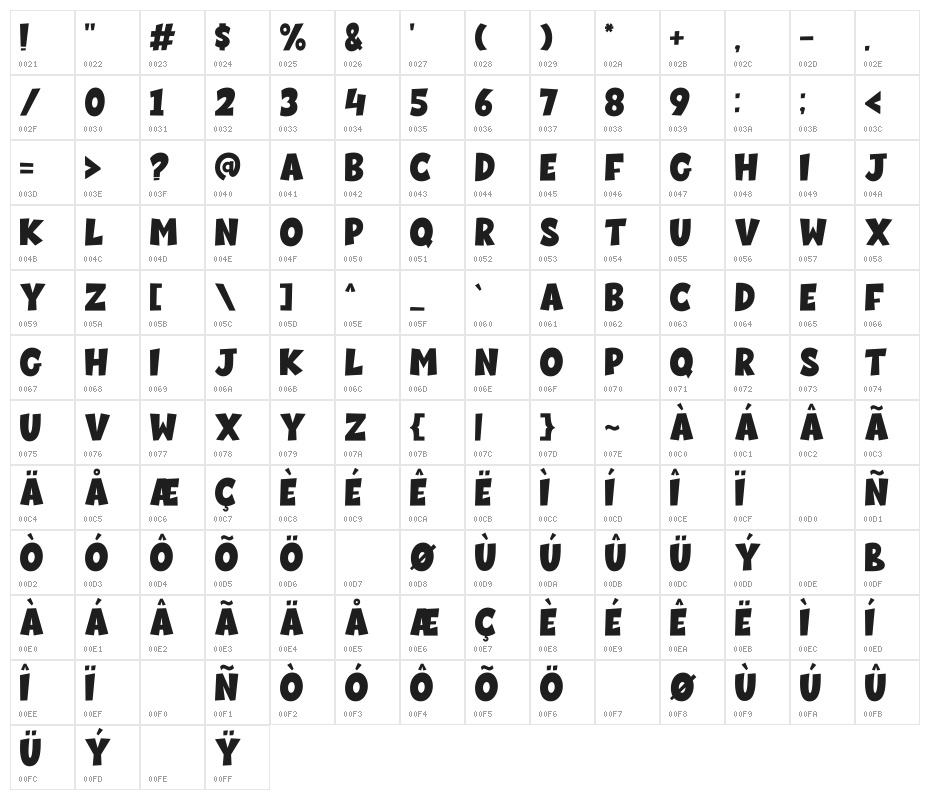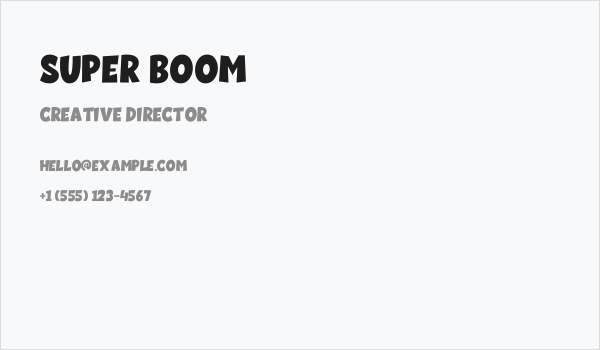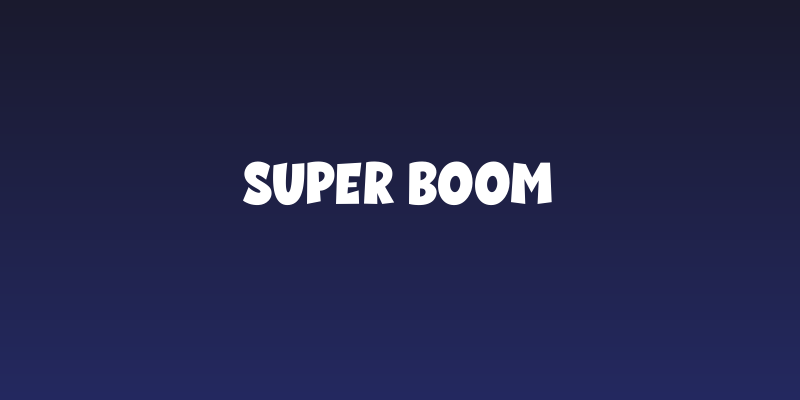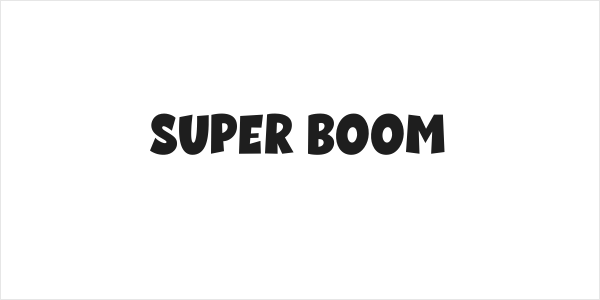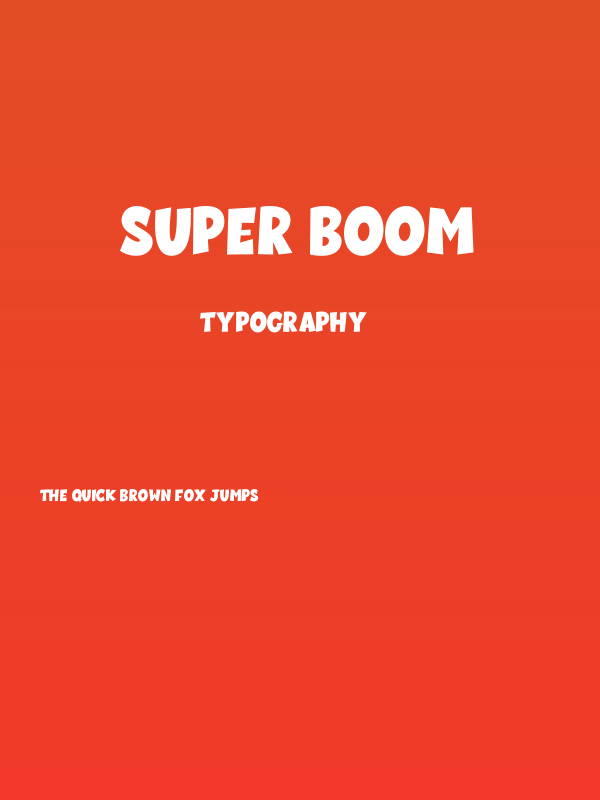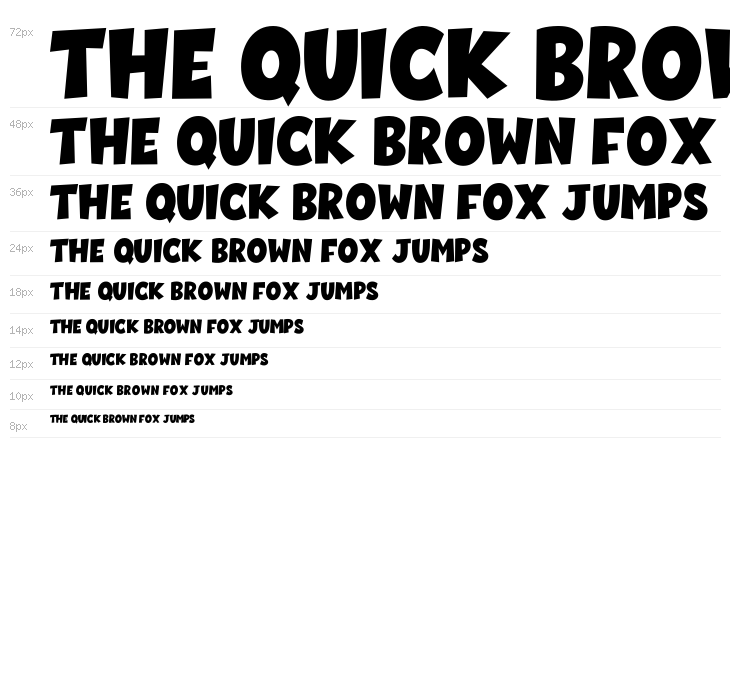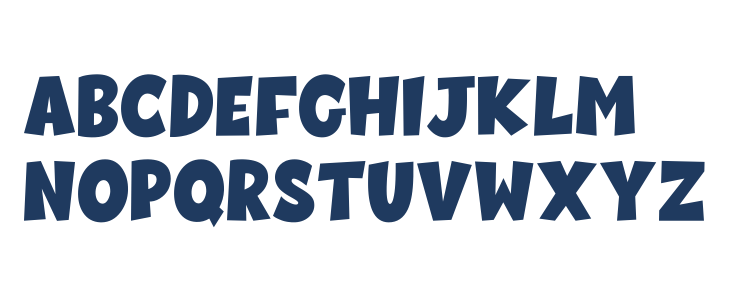
Super Boom Font
Super Boom Description
This font features a bold and playful design, characterized by its thick, chunky letters and dynamic, slightly irregular shapes. The uppercase and lowercase letters maintain a consistent weight, giving the font a cohesive and unified appearance. The numbers and special characters follow the same bold style, ensuring versatility across different uses. The font's exaggerated curves and angles lend it a lively and energetic feel, making it ideal for attention-grabbing headlines and creative projects. Its unique style is both modern and slightly retro, appealing to a wide audience.
| Overall Style | Playful, Modern, Retro |
| Proposed Projects | Ideal for comic books, children's books, posters, and playful branding projects. |